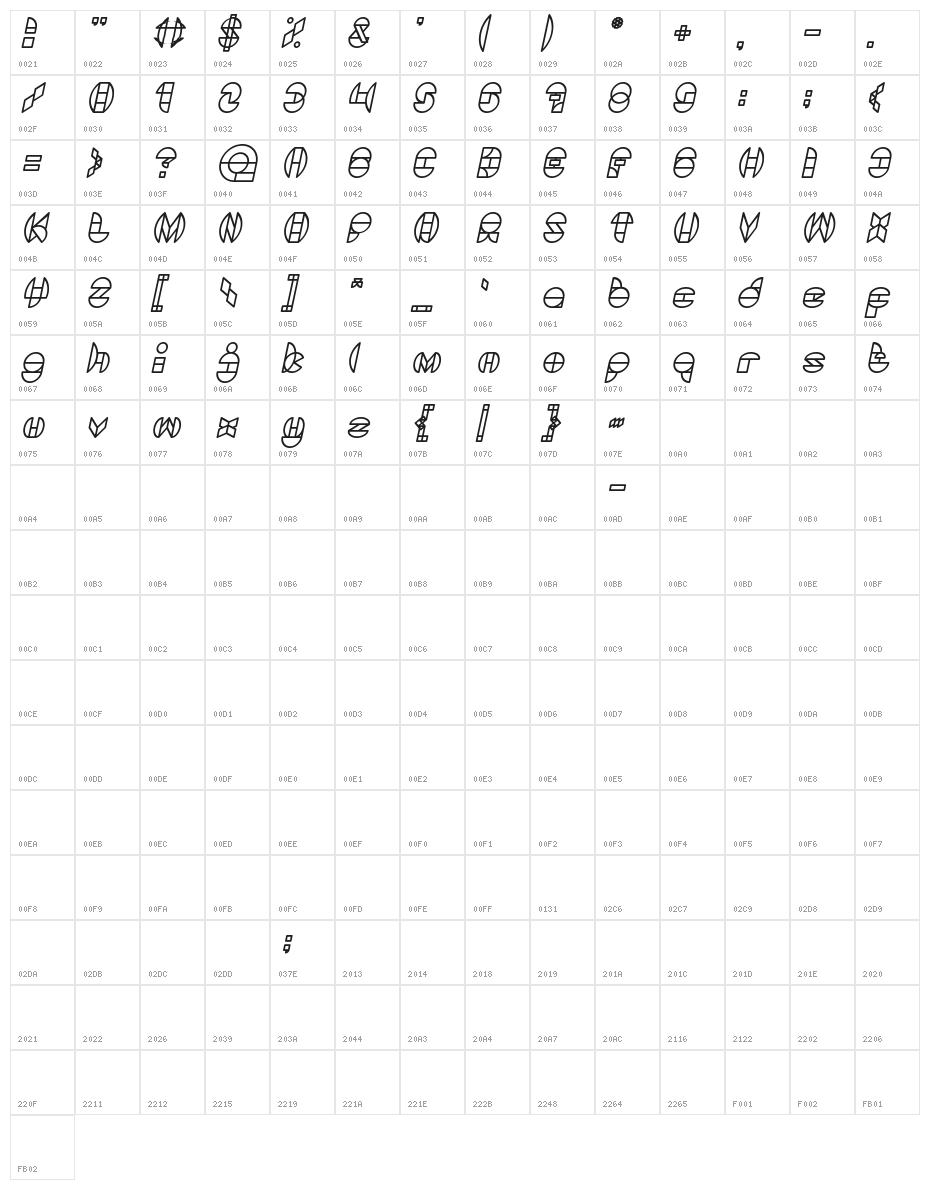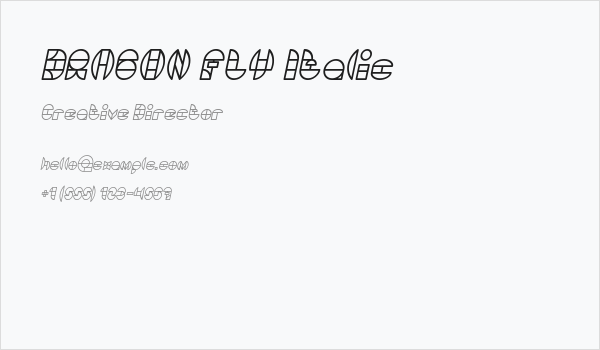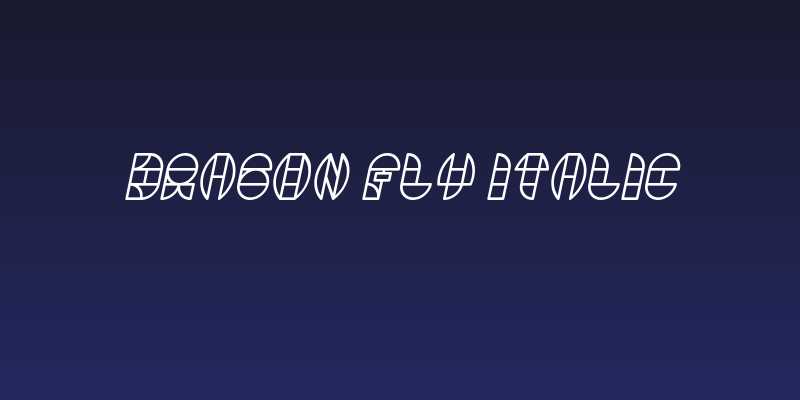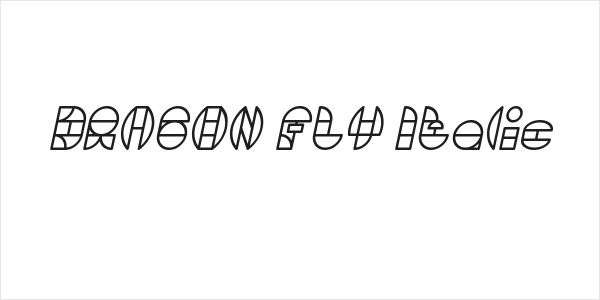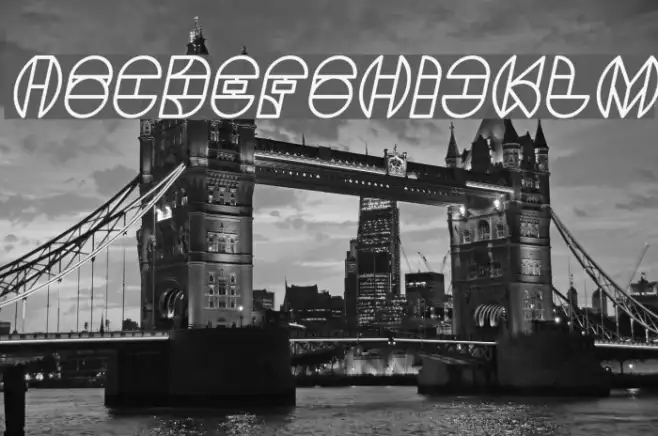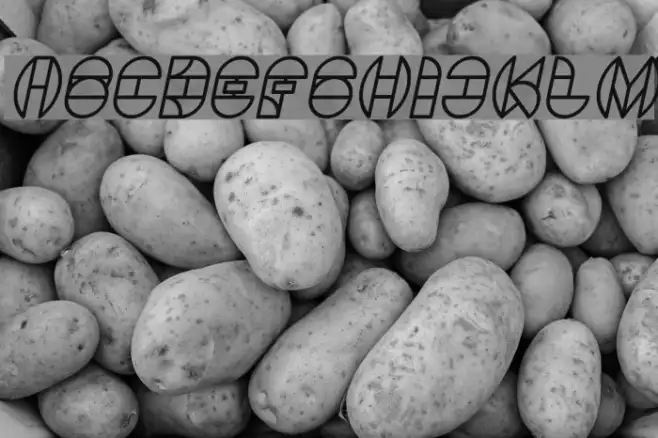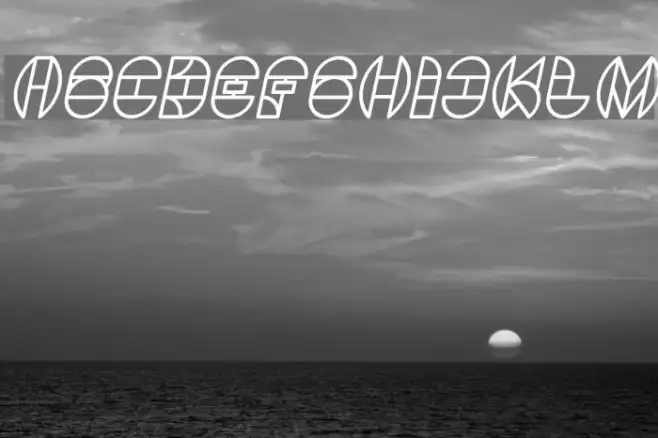
DRAGON FLY Italic Font
DRAGON FLY Italic Description
This font features a bold, geometric design with a unique, futuristic flair. Each character is constructed with a combination of circular and angular elements, creating a dynamic and eye-catching appearance. The letters are italicized, adding a sense of motion and energy. The uppercase and lowercase letters maintain a consistent style, with the lowercase being slightly more compact. Numbers and special characters follow the same geometric pattern, ensuring a cohesive look across all text. The font's distinct style makes it suitable for creative and modern projects.
| Overall Style | Futuristic, Dynamic |
| Proposed Projects | Ideal for sci-fi themed designs, modern branding, posters, and digital artwork. |